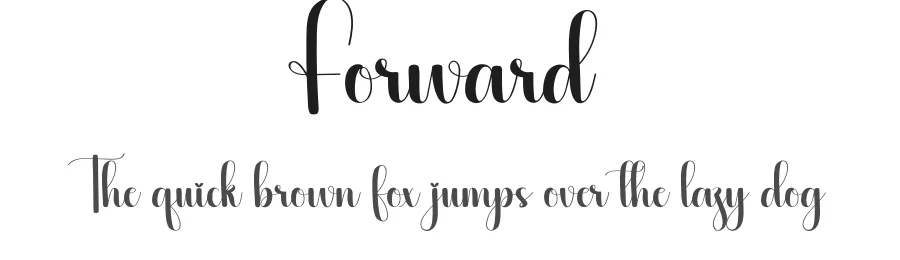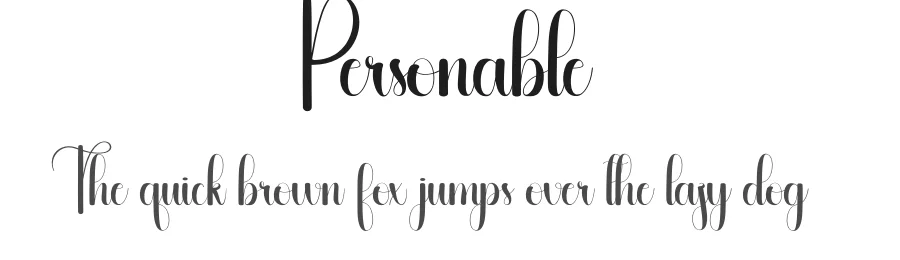
About Hermitage Font
Hermitage Specifications
| Font Family | Hermitage |
| Full Name | Hermitage |
| Glyph Count | 140 glyphs |
| PostScript Name | HermitageRegular |
Hermitage ships with 1 OpenType feature you can switch on in apps that support them (Illustrator, InDesign, Affinity, Figma, CSS font-feature-settings).
Hermitage supports 209 languages.
Hermitage Font is a script font that shines as a display or heading face. Pair it with a clean sans-serif or serif font for body text β the contrast creates a clear hierarchy while the two styles stay balanced and easy to read.
Hermitage Font